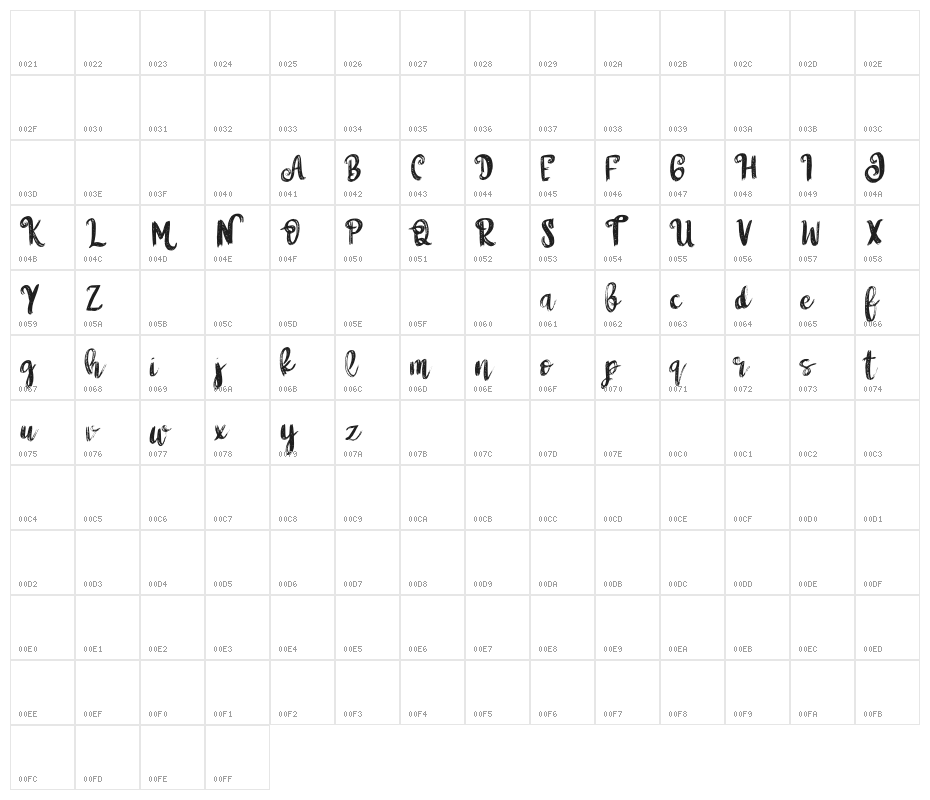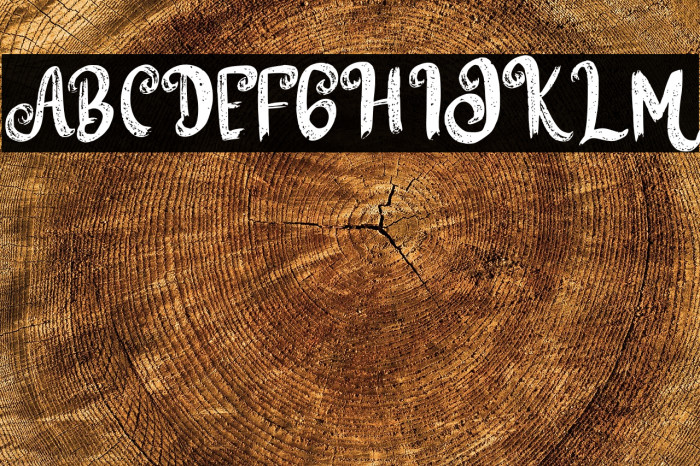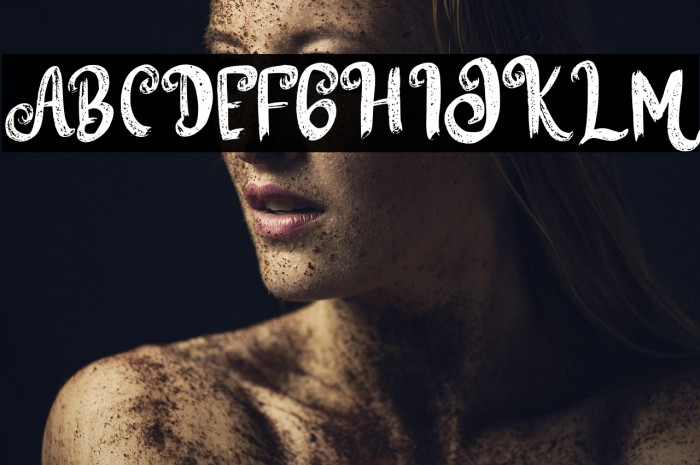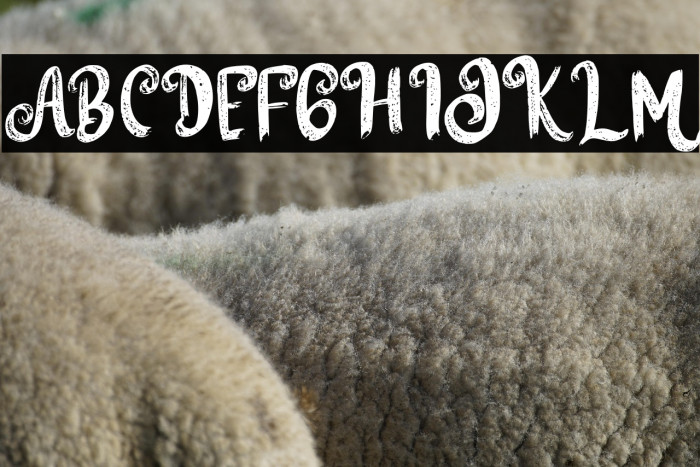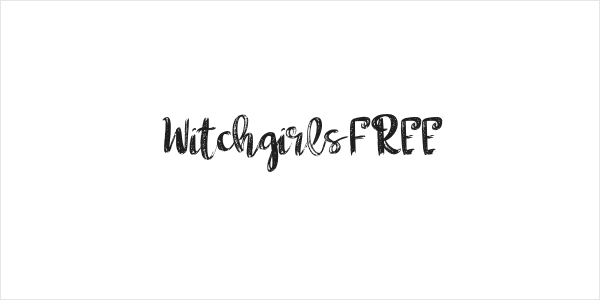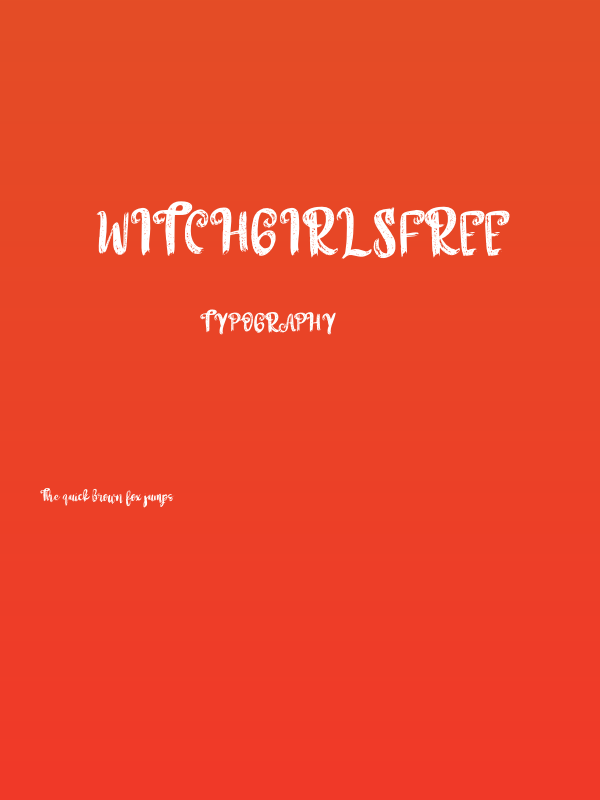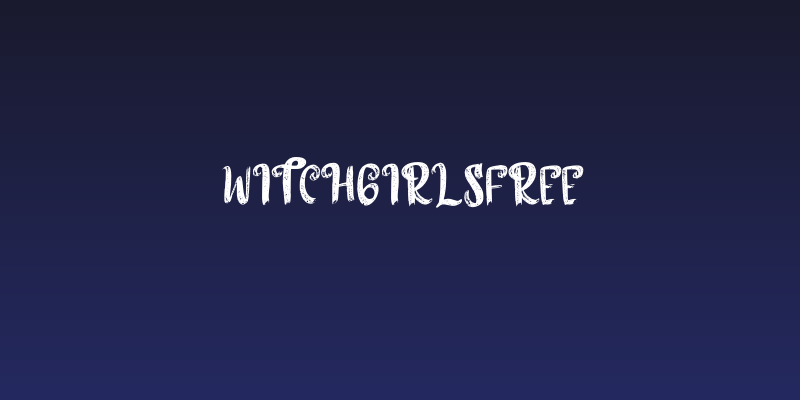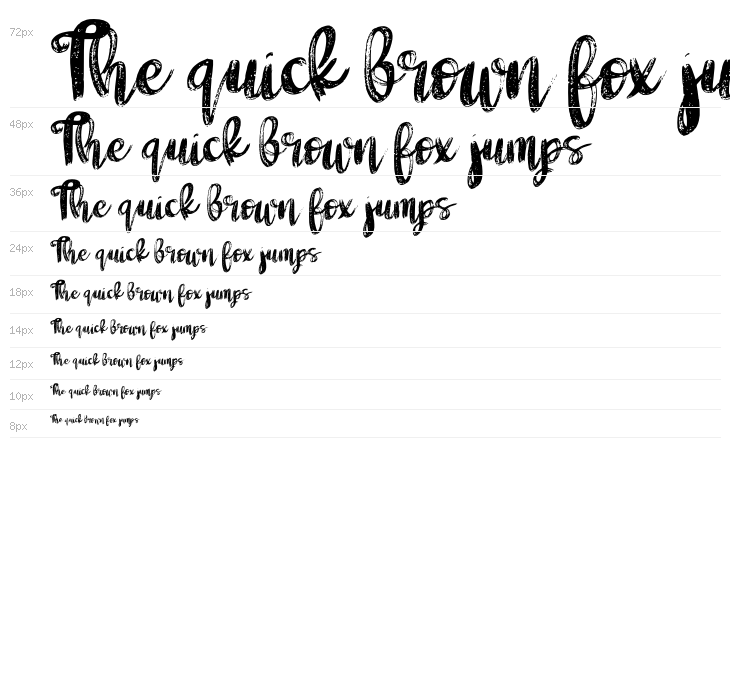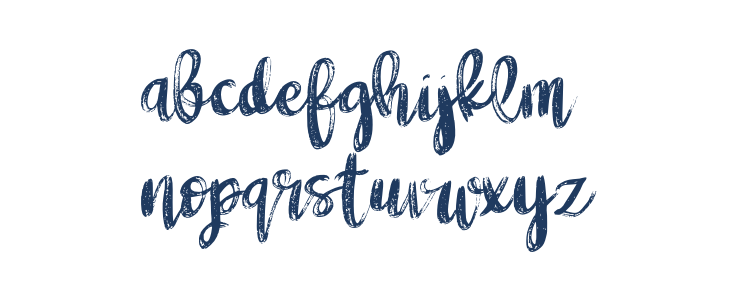
WitchgirlsFREE Font
WitchgirlsFREE Description
This font features a bold and expressive style with a hand-painted appearance. The letters have a textured, brushstroke effect that adds a sense of movement and dynamism. The uppercase and lowercase characters are designed with a playful and whimsical flair, making them stand out with their unique, artistic look. The font's irregular edges and varying stroke thicknesses contribute to its handcrafted feel, making it ideal for creative and informal designs. The overall aesthetic is both modern and artistic, perfect for projects that require a touch of personality and creativity.
| Overall Style | Modern, Artistic |
| Proposed Projects | Ideal for creative projects such as posters, invitations, branding, and social media graphics. |